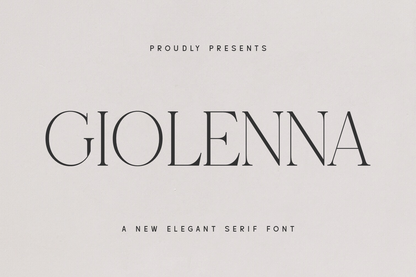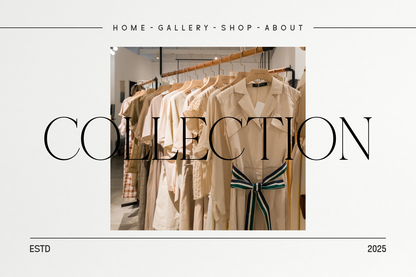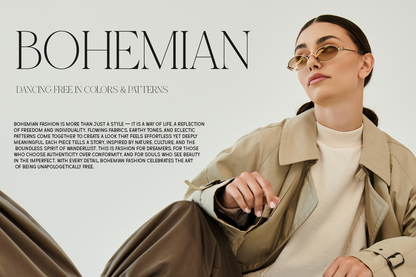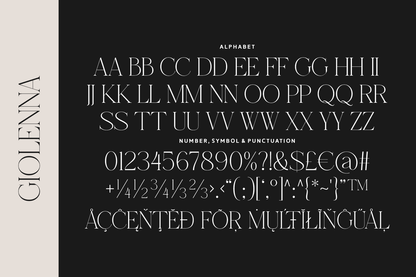
Giolenna is a refined, minimalist serif font with sleek lines and delicate contrasts. Its quiet confidence makes it perfect for editorial design, beauty branding, high-end fashion, and social media visuals. Understated yet impactful, Giolenna’s elegance lies in its restraint — making it a go-to font for timeless, clean design.